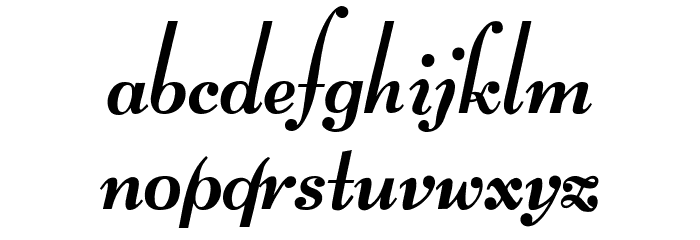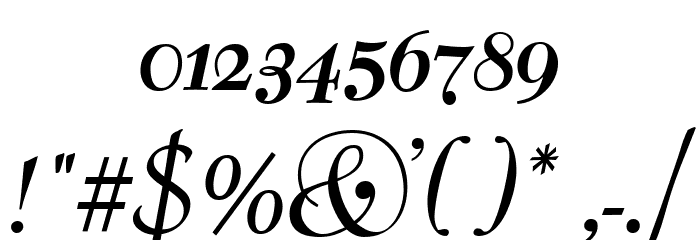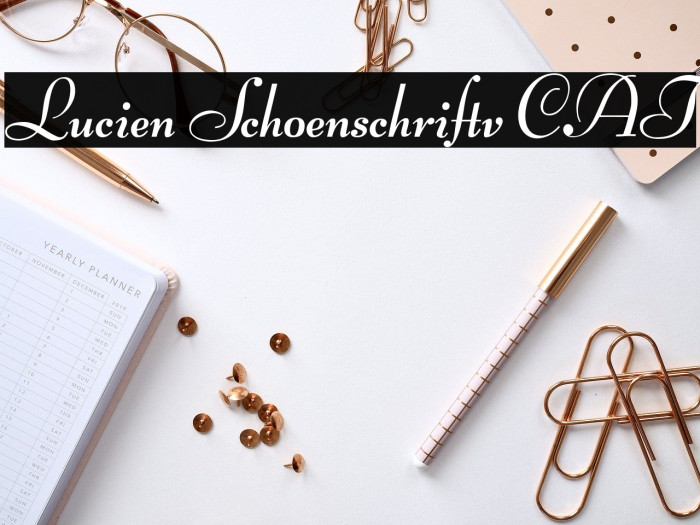
Lucien Schoenschriftv CAT Font
This elegant script font features a flowing, cursive style with intricate loops and swashes. The uppercase letters are particularly ornate, with flourishes that extend beyond the baseline and cap height, giving a sense of movement and grace. The lowercase letters maintain a consistent slant, enhancing the script's fluidity. Numbers and special characters are designed to complement the overall aesthetic, with similar decorative elements. The font's high contrast between thick and thin strokes adds to its sophisticated appearance, making it suitable for formal and decorative uses.
An elegant, high-contrast script font with flowing, ornate characters.
- Proposed Projects: Ideal for wedding invitations, elegant branding, luxury product packaging, and decorative headings.
- Use Case: Logos, Invitations, Decorative text